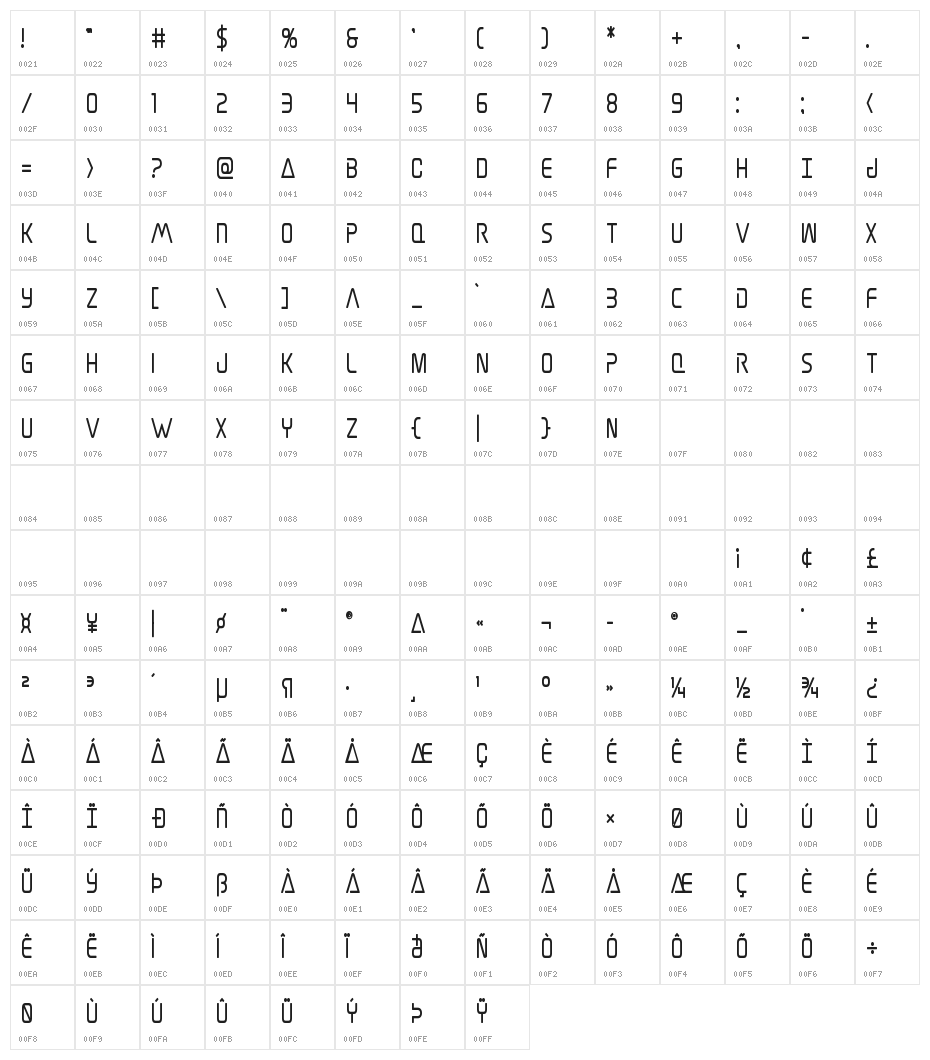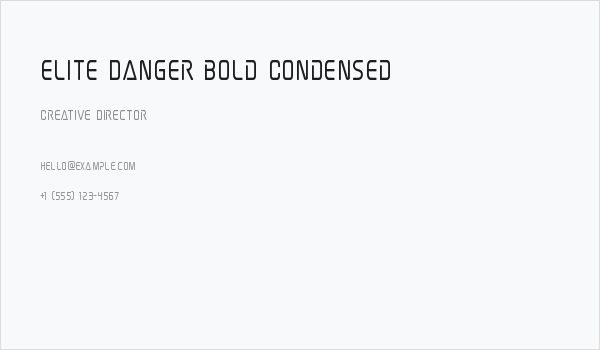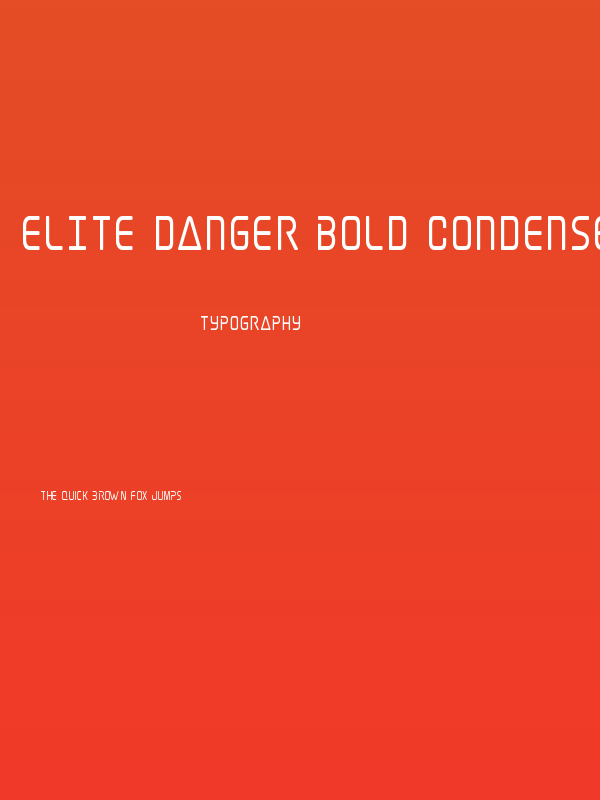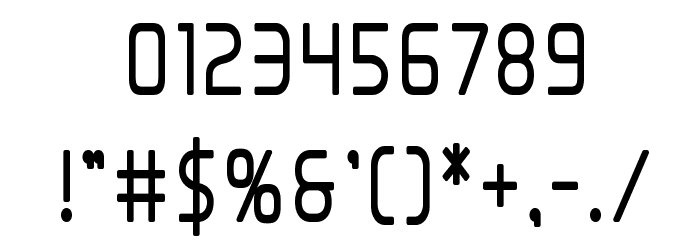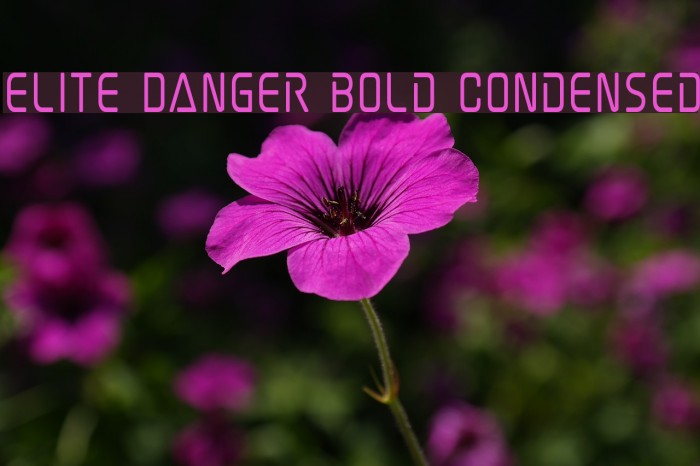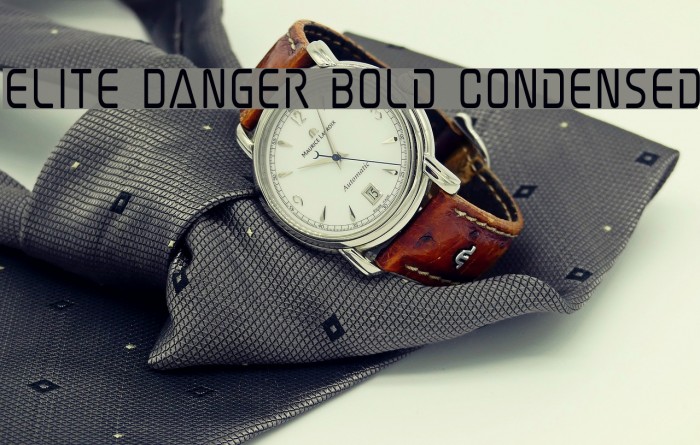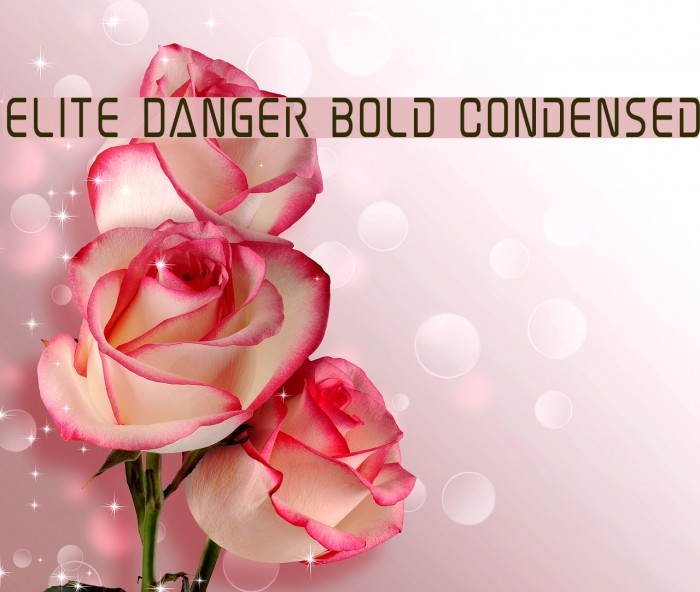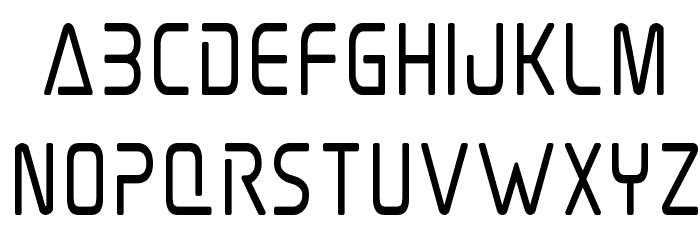
Elite Danger Bold Condensed Font
This font features a bold and condensed style with a modern, geometric appearance. The characters are uniform in width, creating a cohesive and structured look. The uppercase letters are distinct with sharp angles and clean lines, while the lowercase letters maintain a similar geometric style. The numerals are consistent with the overall design, providing clarity and readability. Special characters are included, matching the bold and condensed aesthetic. This font is suitable for projects that require a strong and contemporary feel.